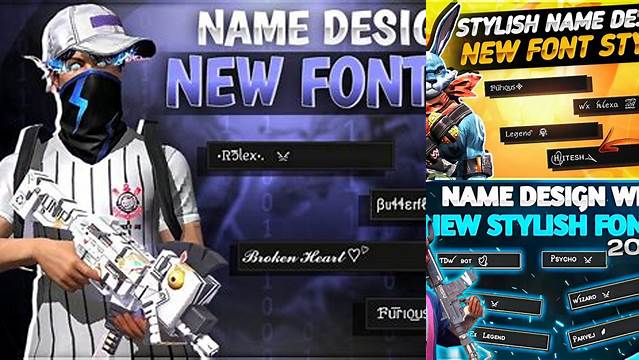
Free Fire New Font Style: Cool Fonts Guide
Hey guys! Are you a Free Fire fanatic looking to spice up your game and stand out from the crowd? One of the coolest ways to do that is by changing your font style. A fresh and unique font can add a personal touch to your in-game name, guild name, and even your profile. In this article, we’re going to dive deep into the world of Free Fire new font styles, showing you how to get them, why they matter, and how to use them effectively. So, buckle up and let’s get started!
Why Bother with New Font Styles in Free Fire?
Let's talk about why new font styles are more than just a cosmetic touch in Free Fire. Think of it this way: in a game with millions of players, how do you make your mark? A unique font is like your personal signature. It helps you stand out and be remembered. It’s all about personalization, and in a world as competitive as Free Fire, every little bit helps. Plus, let’s be honest, a cool font just looks awesome! It adds a bit of flair and personality to your in-game presence. Whether you’re rocking a bold and aggressive font or a sleek and stylish one, it reflects your style and attitude. Using a Free Fire new font style not only enhances your game's aesthetics but also offers a unique way to express your individuality. It’s about making a statement and letting other players know you mean business. You want to make an impression, right? A distinctive font helps you do just that. It makes your name memorable, your guild look more professional, and your overall profile more appealing. First impressions matter, even in the gaming world. A well-chosen font can set you apart from the sea of generic names and profiles. For example, imagine seeing a player with a super cool, stylized name. You’re more likely to remember them, right? The same goes for your guild. A unique font can make your guild’s name stand out in leaderboards and tournaments. It’s a small detail, but it can make a big difference in how others perceive you and your team. Beyond aesthetics, a Free Fire new font style can also create a sense of unity and identity within your guild. When all members use a similar style, it strengthens your brand and makes your guild more recognizable. It’s like having a uniform for your in-game persona, creating a cohesive and professional look. So, it’s not just about looking cool; it’s about building a brand and making an impact. In competitive play, every advantage counts. A strong, memorable presence can intimidate opponents and boost your team's morale. A killer font is just one piece of the puzzle, but it’s a piece that shouldn’t be overlooked. Whether you're aiming to be the top player or lead the most respected guild, a unique font can help you get there. It’s about expressing yourself, making a statement, and standing out in the vast world of Free Fire.
How to Get and Use New Font Styles in Free Fire
Okay, so you’re sold on the idea of spicing up your Free Fire profile with a new font style. Great! But how do you actually get your hands on these cool fonts and start using them? Don't worry, it’s easier than you think! There are several ways to generate unique fonts for Free Fire, and most of them involve using online font generators. These tools are super user-friendly and can create a variety of stylish fonts with just a few clicks. One of the most popular methods is using font generator websites. These websites allow you to type in your desired text, and they’ll generate a list of different font styles you can use. Some of the top font generator websites include LingoJam, Nickfinder, and CoolSymbol. These platforms offer a wide range of options, from bold and edgy fonts to elegant and cursive styles. It's like having a whole library of fonts at your fingertips! To use these websites, simply type your name or the text you want to stylize into the input box. The website will then generate a bunch of different font options for you. You can scroll through the list, preview the fonts, and choose the one that you like best. Once you’ve found the perfect font, just copy it to your clipboard. Many of these font generator websites also offer additional customization options. You can add symbols, emojis, and other special characters to your text to make it even more unique. This is a great way to create a truly personalized look for your Free Fire profile. Experiment with different combinations of fonts and symbols to find a style that perfectly represents your personality. Another option is to use mobile apps designed specifically for generating stylish fonts. These apps often have a more streamlined interface and can be more convenient to use on your smartphone. Some popular apps include Stylish Text, Fancy Text Generator, and Font Rush. These apps work similarly to the websites, but they offer the added benefit of being able to generate fonts directly from your mobile device. This means you can easily copy and paste the fonts into Free Fire without having to switch between your phone and computer. Using a Free Fire new font style app is super straightforward. Simply download the app from your app store, open it up, and type in your text. The app will generate a variety of font styles, and you can select the one you like. Some apps even allow you to save your favorite fonts for future use. Once you have your desired font, the next step is to use it in Free Fire. To do this, simply paste the stylized text into the appropriate field in the game. This could be your in-game name, your guild name, or your profile bio. The process is the same for both the website and app methods. Just copy the font, open Free Fire, and paste it where you want it to appear. It’s important to note that not all fonts will display correctly in Free Fire. The game supports a specific set of characters and symbols, so some of the more elaborate fonts might not render properly. If you find that a font isn’t displaying as expected, try a different option. Experimentation is key! Don’t be afraid to try out different fonts and see what looks best. The goal is to find a font that not only looks cool but also fits within the game’s display limitations. By using these font generator websites and mobile apps, you can easily create a Free Fire new font style that sets you apart from the crowd. It’s a simple yet effective way to personalize your gaming experience and make a lasting impression.
Best Font Styles to Use in Free Fire
Choosing the best font style for your Free Fire persona is a matter of personal taste, but there are some styles that tend to be more popular and effective than others. Let's break down some of the most awesome font styles and how to use them to make a statement. First up, we have bold and aggressive fonts. These fonts are all about making a strong impression. Think sharp, angular letters that command attention. They're perfect if you want to project an image of power and dominance in the game. Imagine seeing a player with a name in a bold, blocky font – you instantly know they mean business, right? These fonts are ideal for players who want to intimidate their opponents and establish themselves as formidable contenders. Use them in your in-game name, your guild name, or even your profile bio to send a clear message: you're here to win. On the other end of the spectrum, we have sleek and stylish fonts. These fonts are more about elegance and sophistication. They often feature smooth lines and a modern look. If you want to convey a sense of class and finesse, these are the fonts for you. They’re perfect for players who want to stand out without being overly aggressive. A sleek font can add a touch of professionalism to your profile and make you appear more refined. Consider using these fonts if you want to create a memorable and stylish impression. For those who want to add a bit of flair and personality, cursive and decorative fonts are the way to go. These fonts are more whimsical and artistic, featuring unique letterforms and embellishments. They're great for expressing your individuality and adding a personal touch to your profile. If you want to show off your creative side, a cursive or decorative font can be the perfect choice. These fonts are ideal for players who want to stand out from the crowd and make a statement. They’re not just about looking cool; they’re about expressing who you are. In addition to these broad categories, there are also some specific font styles that are particularly popular in Free Fire. One example is the bubble font, which features rounded letters that look like bubbles. This font is playful and eye-catching, making it a great choice for players who want to add a bit of fun to their profile. Another popular style is the gothic font, which has a dark and mysterious vibe. This font is perfect for players who want to project an image of strength and intrigue. When choosing a font style, it’s important to consider your overall persona and what message you want to convey. Are you a fierce competitor? A stylish player? Or a creative individual? Your font should reflect your personality and help you stand out in the game. Don’t be afraid to experiment with different styles and see what works best for you. Try out a few different fonts and see how they look in your profile. Get feedback from your friends and guildmates. The goal is to find a font that you love and that represents you well. Remember, your Free Fire new font style is a reflection of your identity in the game. Make it count!
Tips for Using Fonts Effectively in Free Fire
Now that you know how to get new fonts and which styles are popular, let’s talk about how to use them effectively in Free Fire. It's not just about picking a cool font; it’s about using it strategically to enhance your in-game presence. First and foremost, consistency is key. If you’re using a specific font for your in-game name, consider using a similar style for your guild name and profile bio. This creates a cohesive and professional look, making you and your team more recognizable. Think of it as branding – you want your font to be part of your overall identity. A consistent font style makes your profile look polished and well-thought-out. It shows that you’re serious about your game and your image. Consistency also helps with recognition. If players see your unique font style consistently, they’re more likely to remember you and your guild. This can be especially beneficial in competitive play, where name recognition can give you an edge. Avoid mixing too many different font styles. While it might be tempting to use a different font for every aspect of your profile, this can end up looking cluttered and unprofessional. Stick to one or two font styles that complement each other and use them consistently. It's better to have a clean and cohesive look than a chaotic mix of fonts. Choose fonts that are easy to read. While fancy and decorative fonts can look cool, they’re not always the most legible. If players can’t easily read your name or guild name, your efforts to stand out might backfire. Opt for fonts that are clear and easy to understand, even at a glance. Legibility is especially important in fast-paced games like Free Fire, where players need to quickly identify their teammates and opponents. A clear font ensures that your name is easily visible and recognizable, even in the heat of battle. Another important tip is to consider the context. The font style you choose should be appropriate for the situation. A bold and aggressive font might be perfect for your in-game name, but it might not be the best choice for your profile bio if you want to convey a more friendly and approachable image. Think about the message you want to send and choose a font that aligns with that message. For example, if you're a competitive player, a strong and assertive font can help you project an image of dominance. On the other hand, if you're more focused on teamwork and collaboration, a more approachable and friendly font might be a better choice. Don’t be afraid to experiment and get creative. There are tons of different font styles out there, so try out a few and see what you like best. Mix and match different fonts and symbols to create a unique look that represents your personality. The goal is to find a style that you love and that makes you stand out from the crowd. Experimentation is key to finding the perfect font style. Try out different combinations of fonts, symbols, and colors. Get feedback from your friends and guildmates. The more you experiment, the more likely you are to find a style that truly represents you. Finally, stay updated with the latest trends. Font styles can come and go, so keep an eye on what’s popular in the Free Fire community. This doesn’t mean you have to change your font every week, but it’s good to be aware of the current trends so you can make informed decisions about your style. By following these tips, you can use fonts effectively to enhance your in-game presence and make a lasting impression in Free Fire. It’s all about finding the right balance between style, legibility, and consistency. So, go ahead, get creative, and let your font do the talking!
Conclusion: Level Up Your Style with Free Fire New Font Styles
So, there you have it, guys! Everything you need to know about Free Fire new font styles. Changing your font is a simple yet powerful way to personalize your gaming experience, stand out from the crowd, and express your unique style. Whether you're aiming to intimidate your opponents with a bold font, impress them with a sleek style, or showcase your creativity with a decorative design, the possibilities are endless. Remember, your font is more than just a cosmetic detail; it's a reflection of your identity in the game. It’s about making a statement and letting other players know who you are. By using font generator websites and mobile apps, you can easily create a variety of stylish fonts to suit your preferences. Experiment with different styles, symbols, and combinations to find the perfect look for your in-game name, guild name, and profile bio. Consistency is key, so consider using a similar style across your profile to create a cohesive and professional image. Choose fonts that are easy to read and appropriate for the context, ensuring that your name and messages are clear and impactful. Stay updated with the latest trends and don't be afraid to get creative, but most importantly, have fun with it! Your font should be something that you love and that represents you well. So, go ahead and level up your style with Free Fire new font styles and make your mark in the game. It’s time to show off your personality and let your font do the talking. Whether you're a seasoned pro or a new player, a unique font can help you make a lasting impression and elevate your gaming experience. So, what are you waiting for? Dive in, explore the world of fonts, and find the perfect style to represent you in the world of Free Fire. Happy gaming, and may your font always be on point! We hope this guide has been helpful in showing you how to enhance your game with cool fonts. Remember, it's all about making your mark and expressing yourself in the vast world of Free Fire. So go out there, experiment, and have fun creating your unique style! Your font is your signature, so make it a good one.